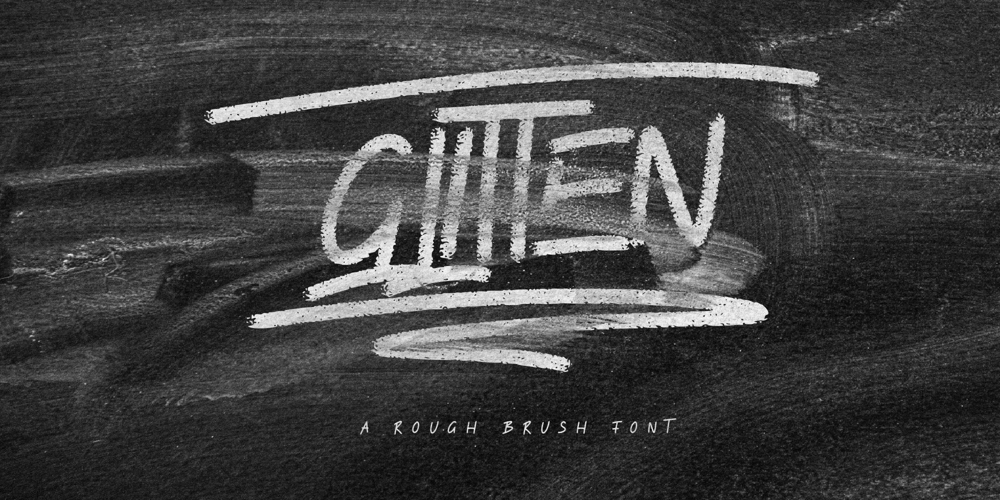
Glitten Font Family was designed by ryan creative and published by ryan creative. Glitten contains 1 styles and family package options. Glitten is a rough, chalk-textured typeface. With hand-drawn strokes and broken lines that make this font look like chalk. Get every stroke real and realistic, with glyphs and open type features with styles and straps, ornaments, and alternative additions. It can be used for various purposes. such as, greeting cards, t-shirt designs, product designs, etc.Glitten is supported with additional characters that have Alternate and Ornament forms, which will help you achieve a realistic style with your own creations.FEATURES;-Support Foreign, Numbers and Punctuation-Alternative, Ornament-Works on PC-Simple installation-Accessible in Adobe Illustrator, Adobe Photoshop. Adobe InDesign, even works in Microsoft Word-Fully accessible without additional design software.Glitten is encoded with Unicode PUA, which allows full access to all additional characters without having to design special software. Mac users can use the Font book, and Windows users can use the Character map to view and copy any extra characters to paste into your favorite text editor/app.